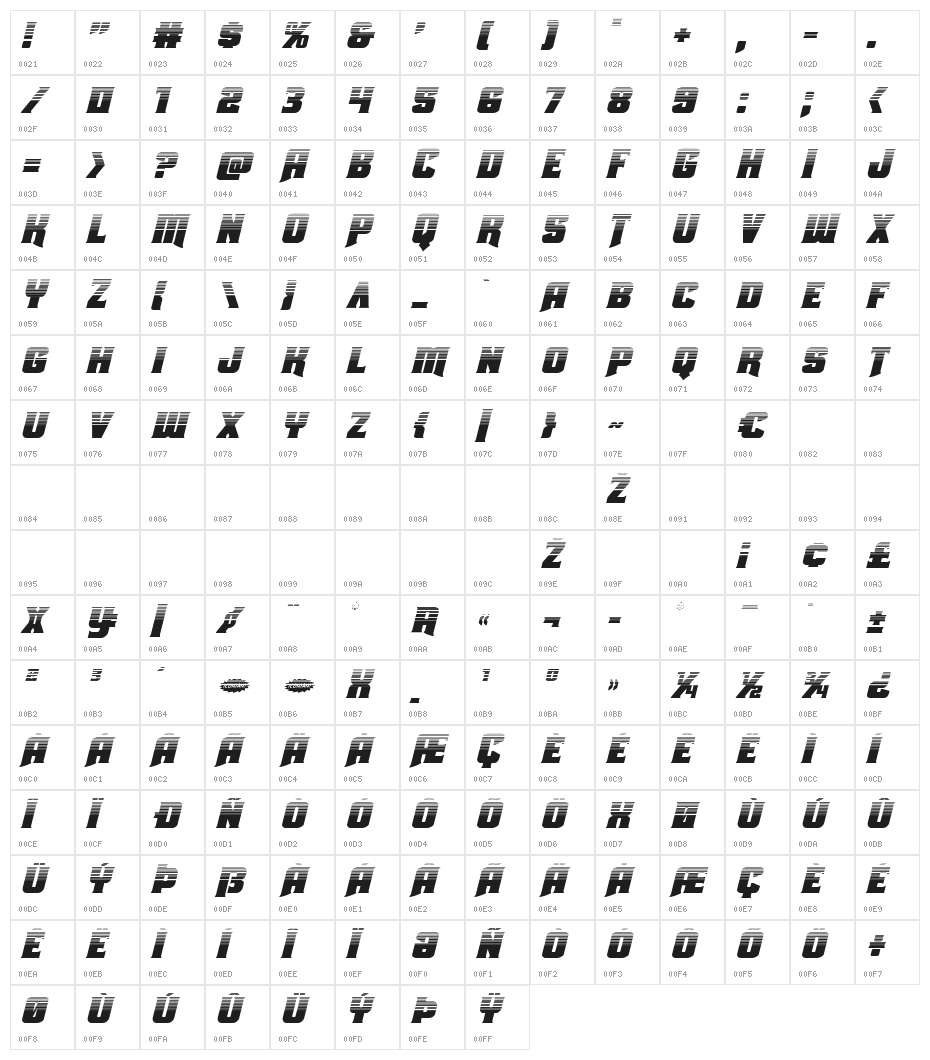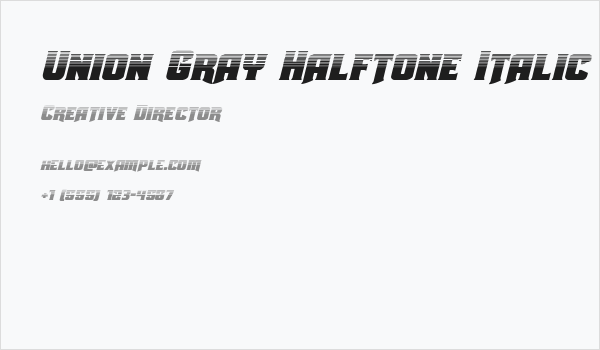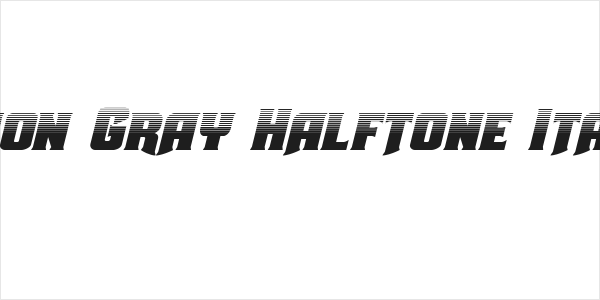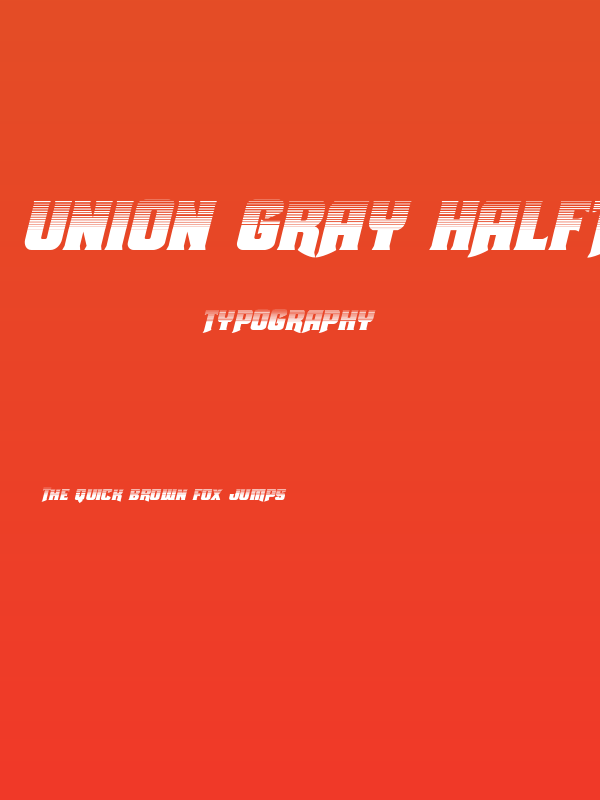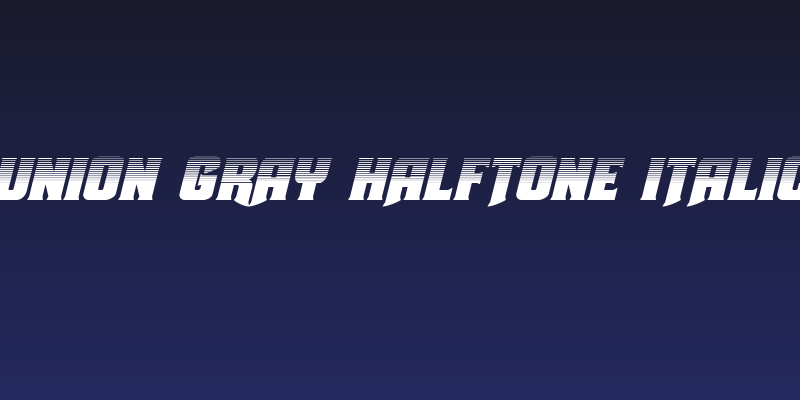
Union Gray Halftone Italic Font
Union Gray Halftone Italic Description
This font features a bold and dynamic style with a distinct halftone effect, giving it a modern and edgy appearance. The characters are italicized, adding a sense of motion and urgency. The uppercase and lowercase letters are consistent in style, with sharp angles and a slightly condensed form. The numbers and special characters maintain the same boldness and halftone detailing, ensuring uniformity across all elements. This font's unique design makes it stand out, ideal for projects that require a strong visual impact.